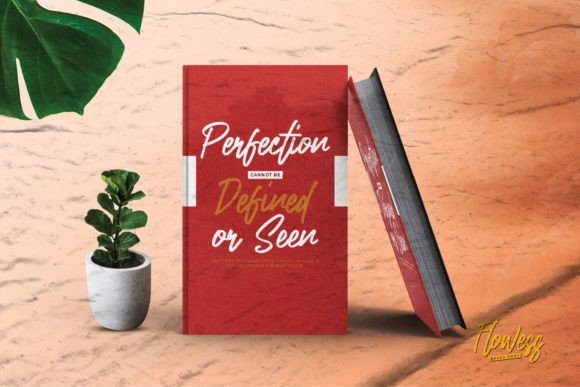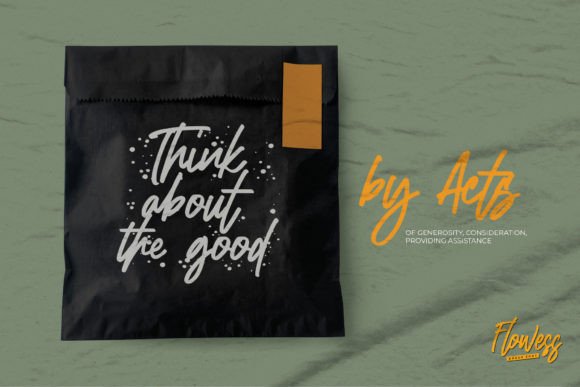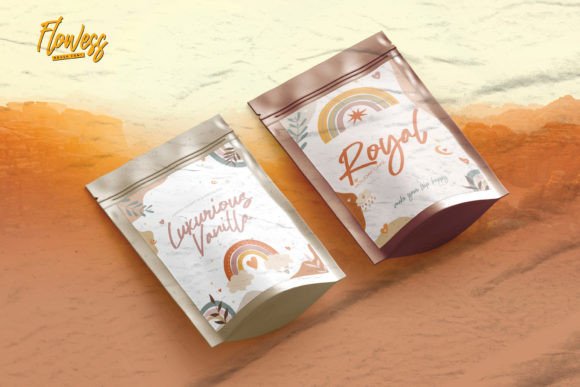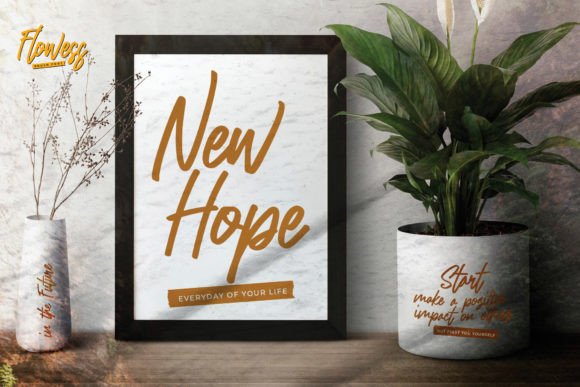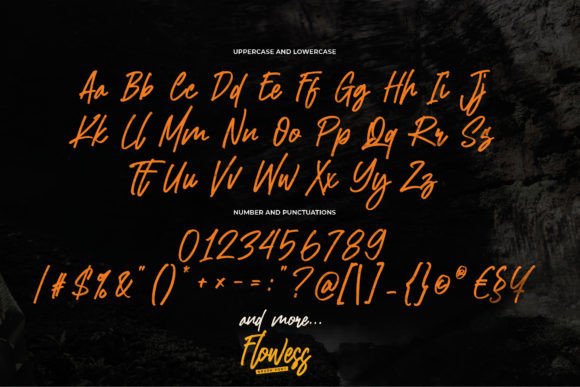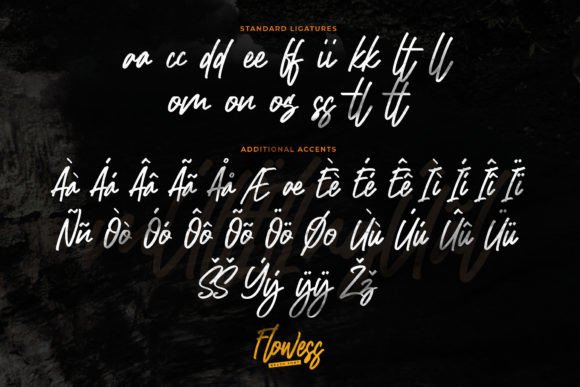
The Ultimate Guide to Flowess Font: Elevate Your Designs with a Personal Touch
Have you ever been in the middle of a design project, and suddenly, you’re stuck on finding the perfect font? I recall a particularly frustrating experience while working on a client’s wedding invitation project. The design was almost complete, but the font just wasn’t right. That’s when I stumbled upon Flowess Font, a handwritten brush script font that instantly elevated my design game.
A First Impression: What Makes Flowess Font Special
Flowess Font is a beautiful, marker board-inspired script font that’s perfect for creating personalized greeting cards, invitations, and motivational quotes. What sets it apart is its PUA (Private Use Area) encoding, which allows easy access to a wide range of glyphs and ligatures. This means you can add a touch of personality to your designs without needing to manually adjust each letter.
What I Love About Flowess Font
- ✨ Unique, marker board-inspired look that’s perfect for adding a personal touch to designs
- ✅ PUA encoded for easy access to glyphs and ligatures
- 💫 Highly legible, even at smaller font sizes
- 🎨 Versatile and suitable for various design projects, from invitations to social media graphics
While Flowess Font is an excellent choice for many design projects, there are a few minor quirks to be aware of:
- 🤔 Some users may find the font a bit too casual for formal designs
- ⚠️ Limited availability of certain characters, such as non-English alphabets
While the true story behind Flowess Font’s creation is unknown, it’s easy to imagine that the designer was inspired by the classic marker board look. Perhaps they wanted to create a font that would allow designers to add a personal touch to their work, without sacrificing legibility or style. Whatever the inspiration, Flowess Font is a beautiful addition to the world of typography.
| Font Name | Flowess Font |
| Author | Gassstype Studio |
Q: What is PUA encoding, and how does it benefit designers?
A: PUA (Private Use Area) encoding allows designers to access a wide range of glyphs and ligatures, making it easier to add personality and style to their designs.
Q: Is Flowess Font suitable for body text?
A: While Flowess Font is highly legible, it’s best suited for headings, titles, and short paragraphs. For longer body text, a more traditional font may be more suitable.